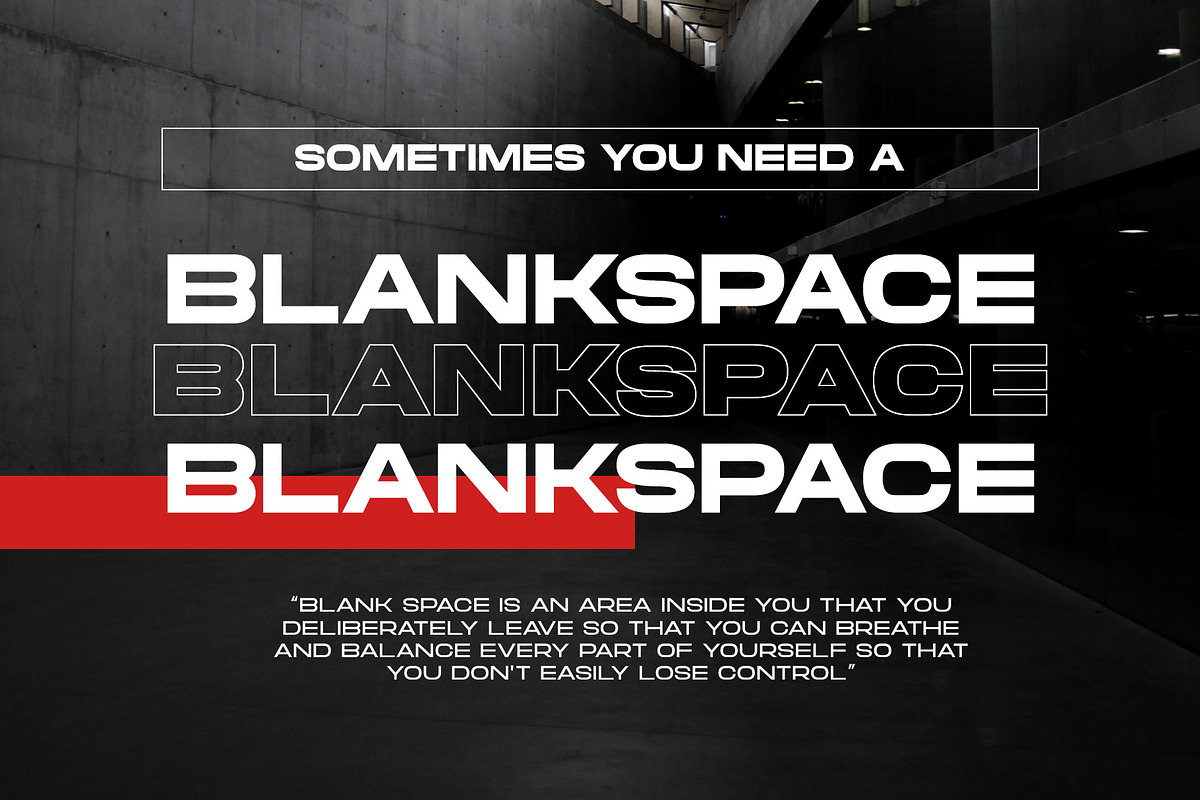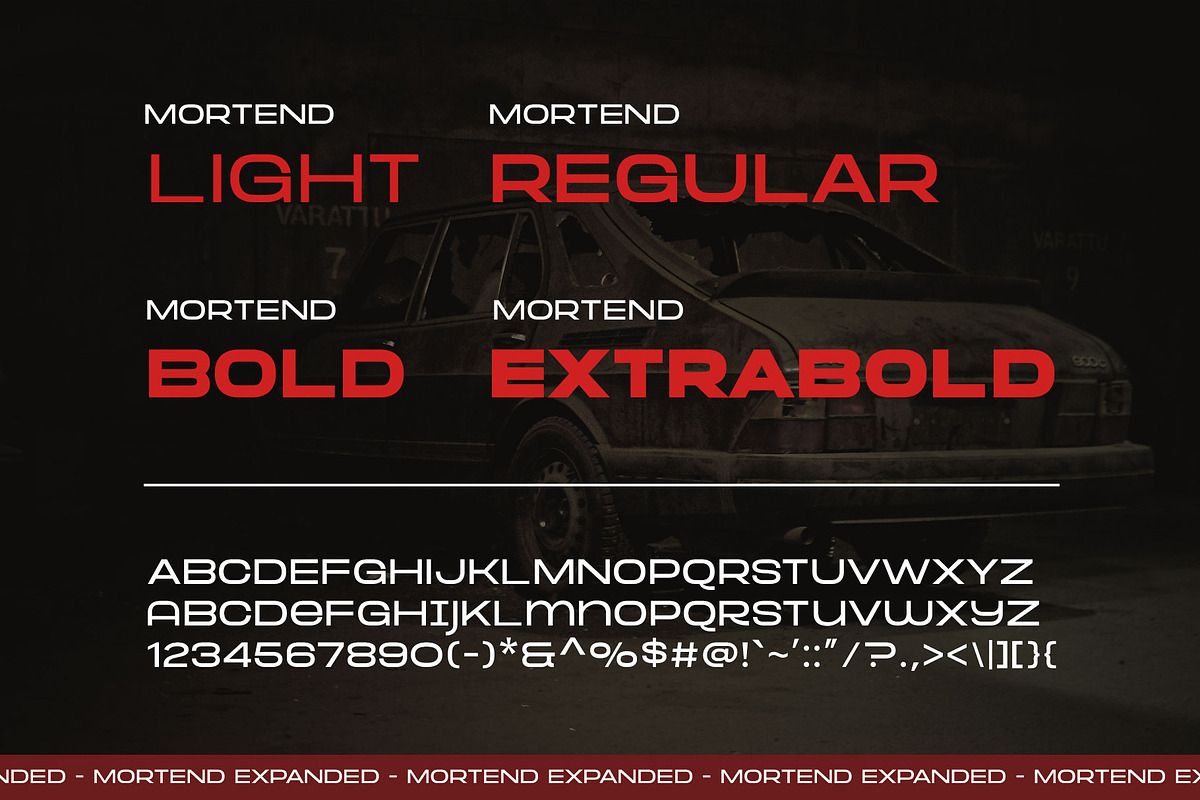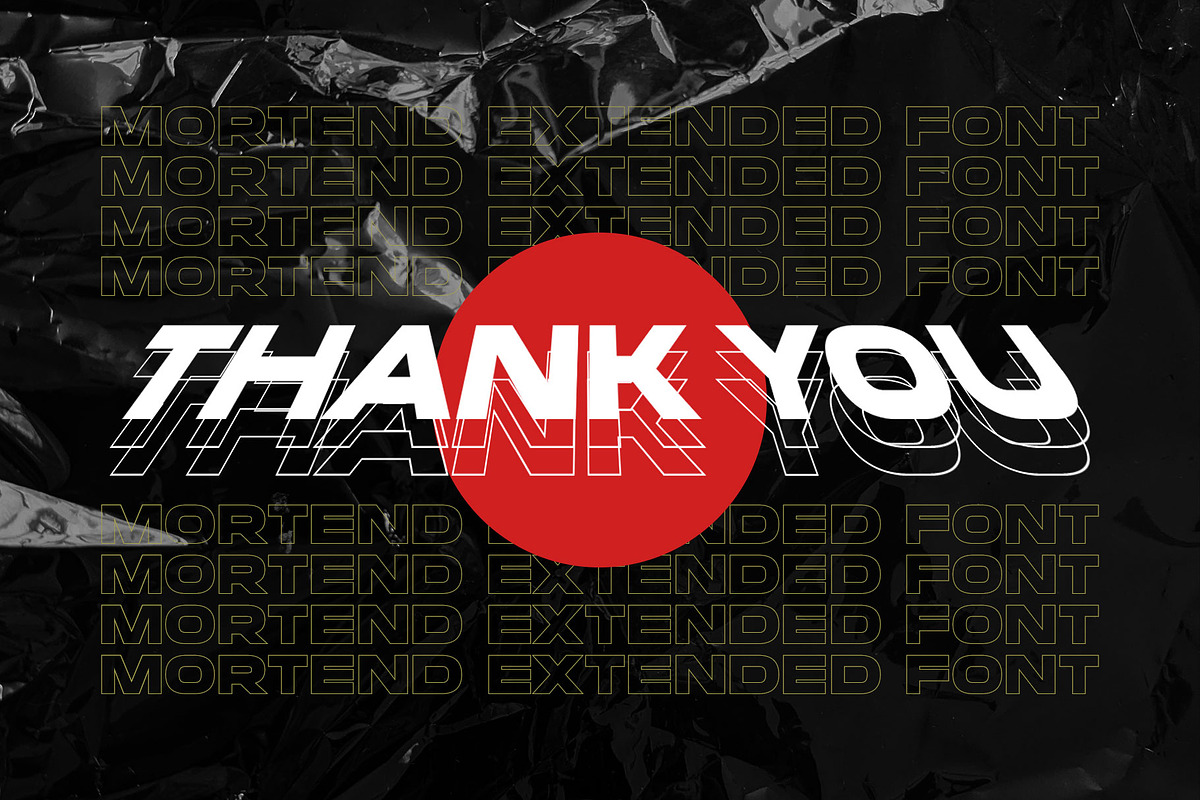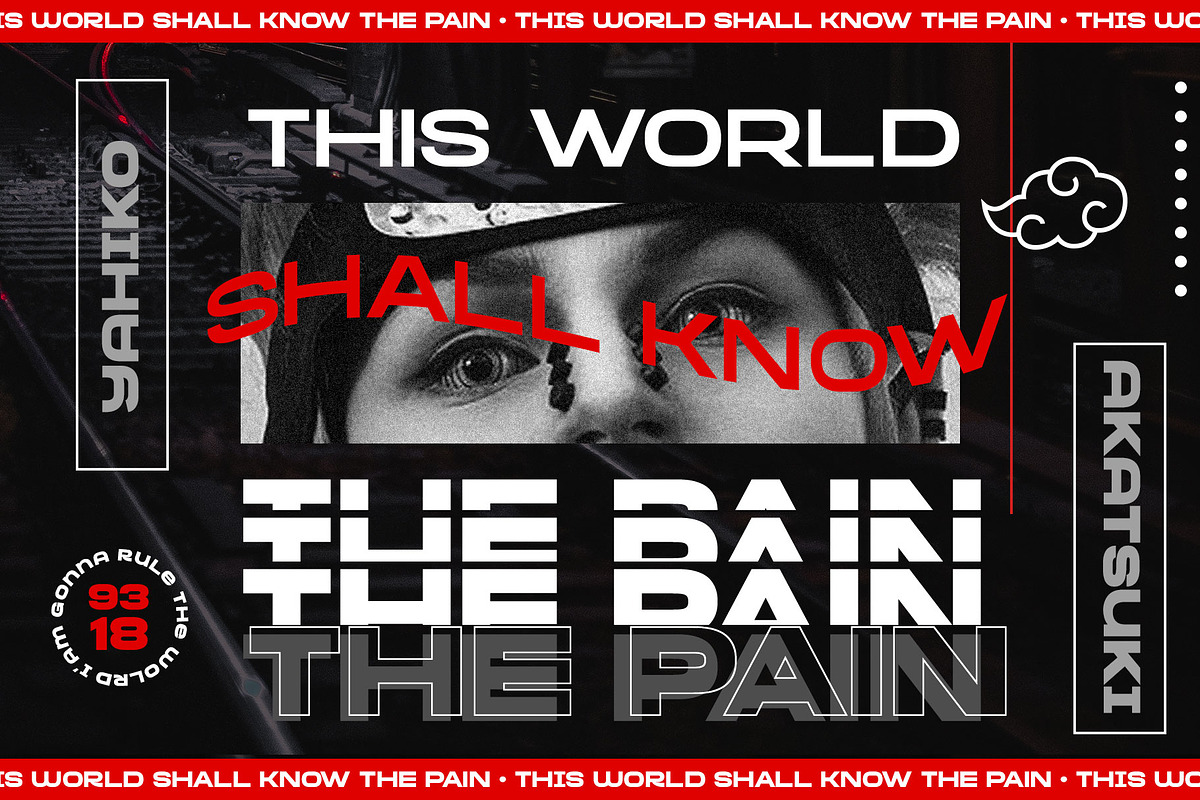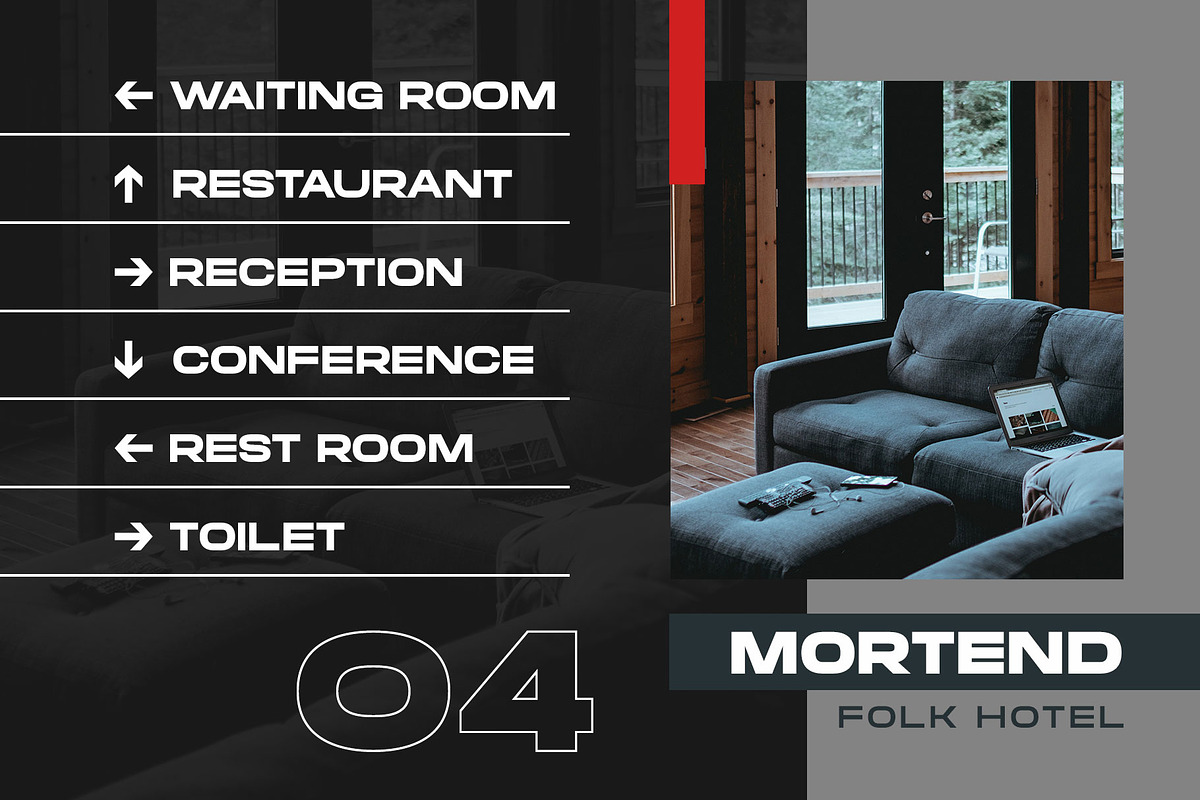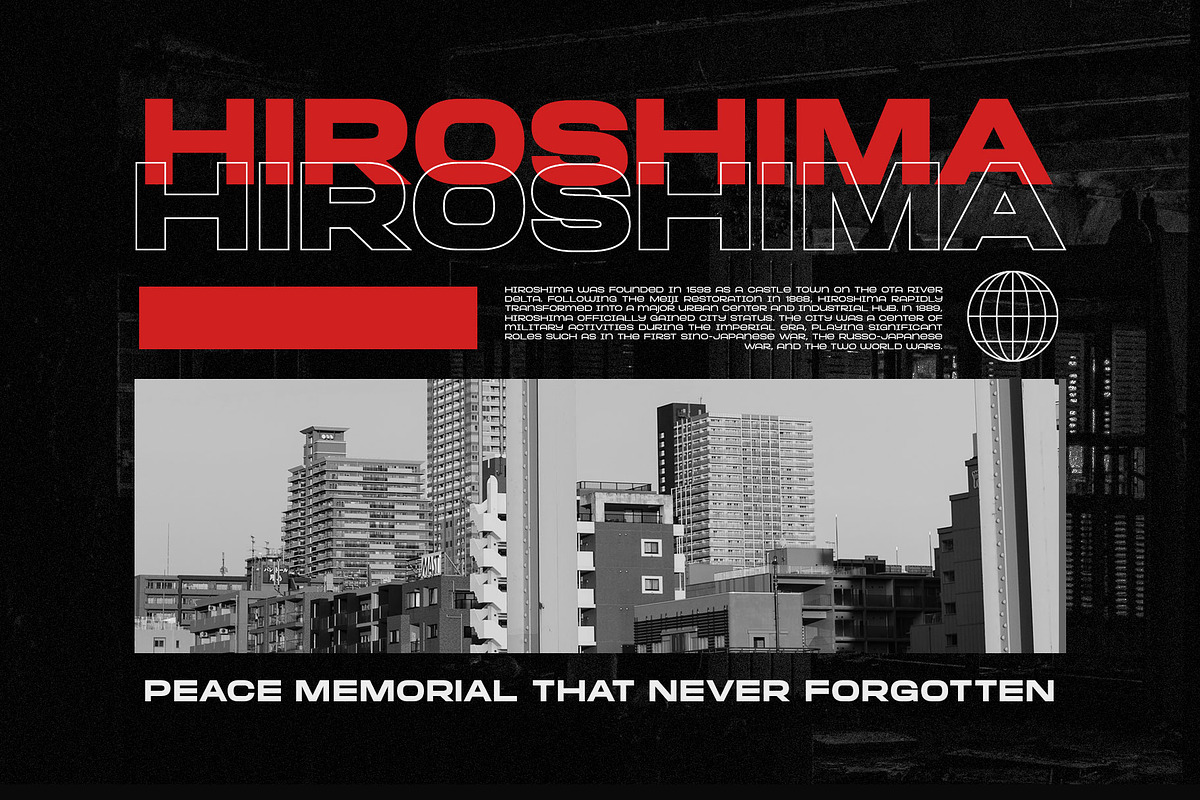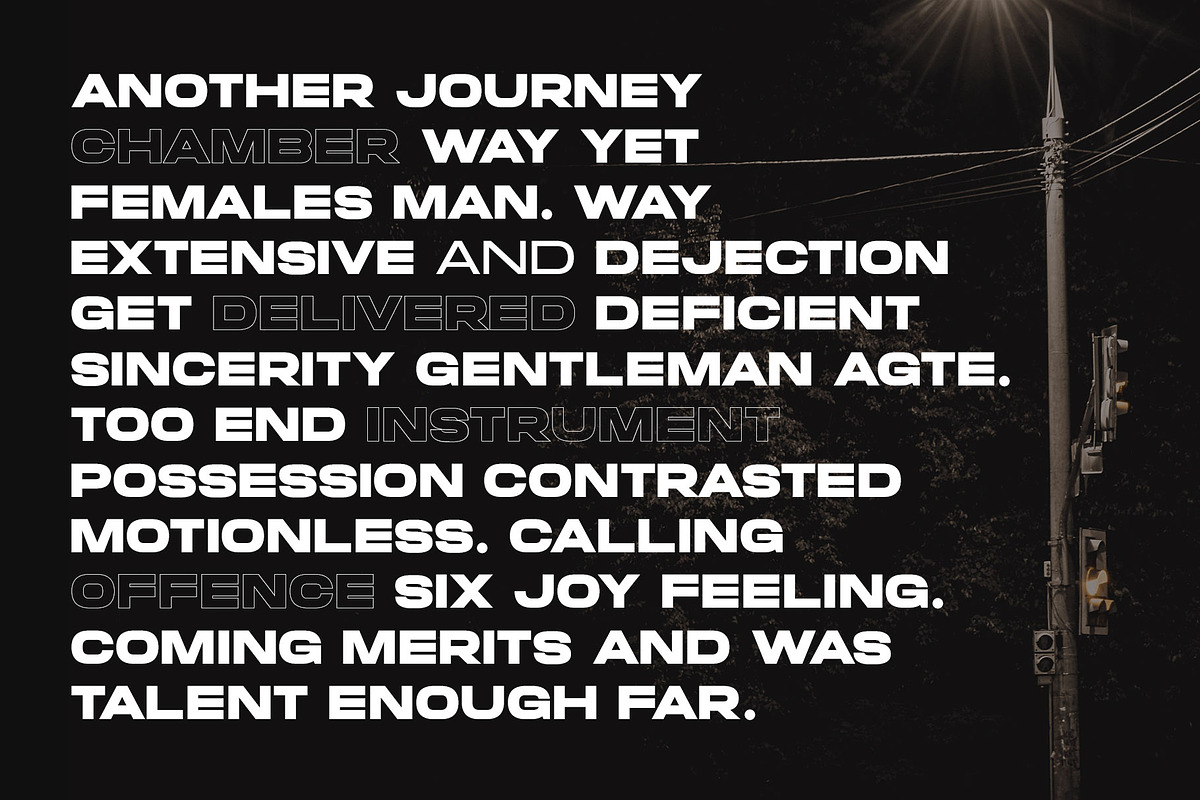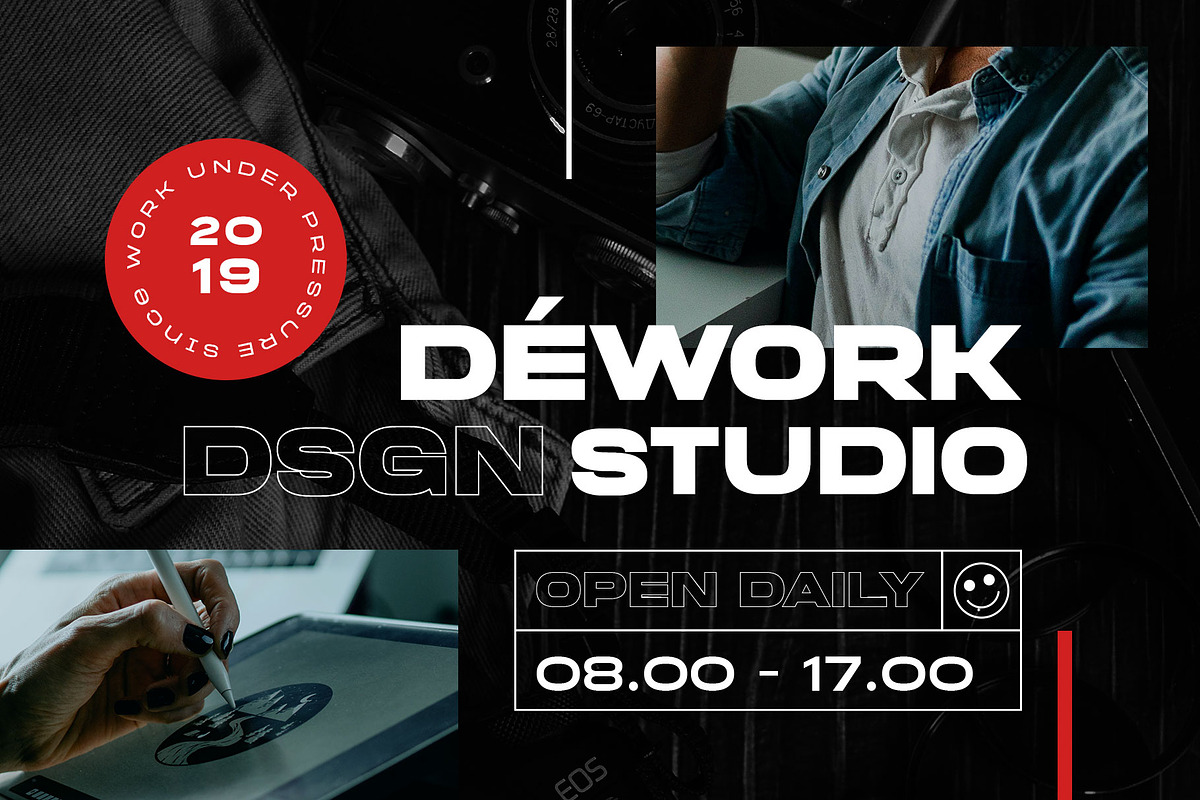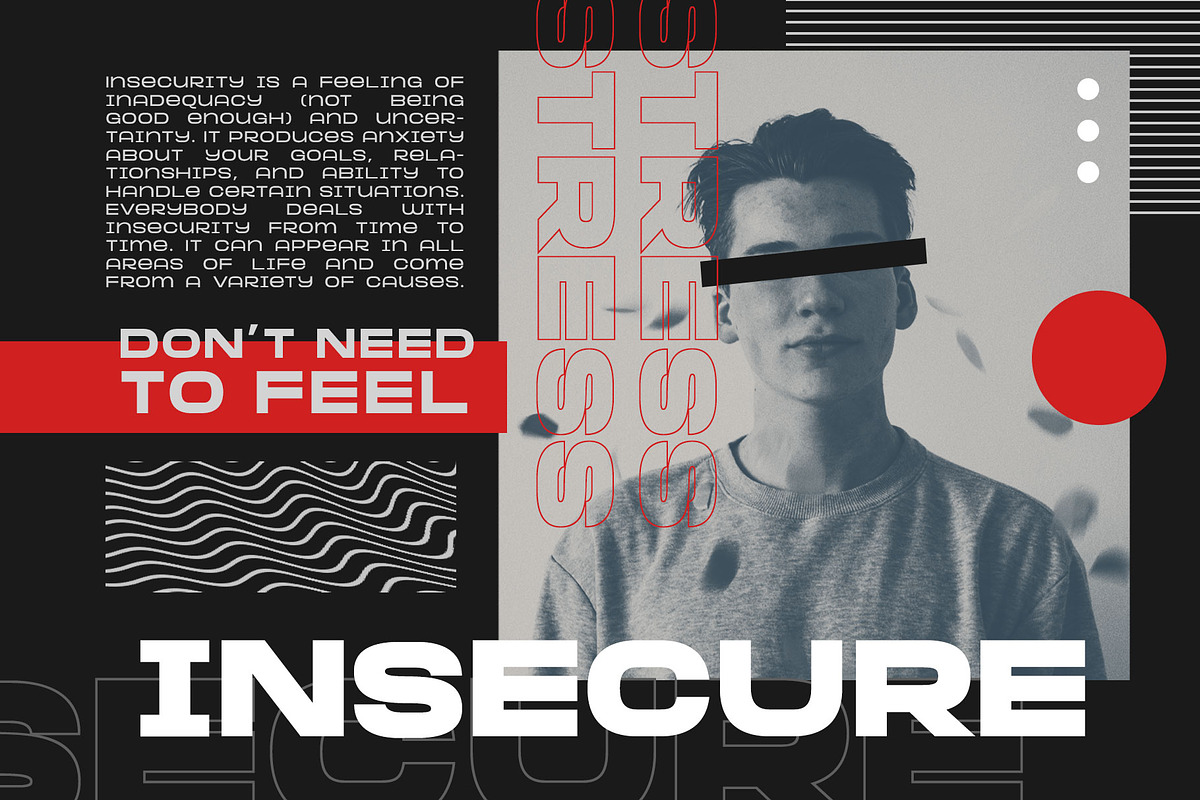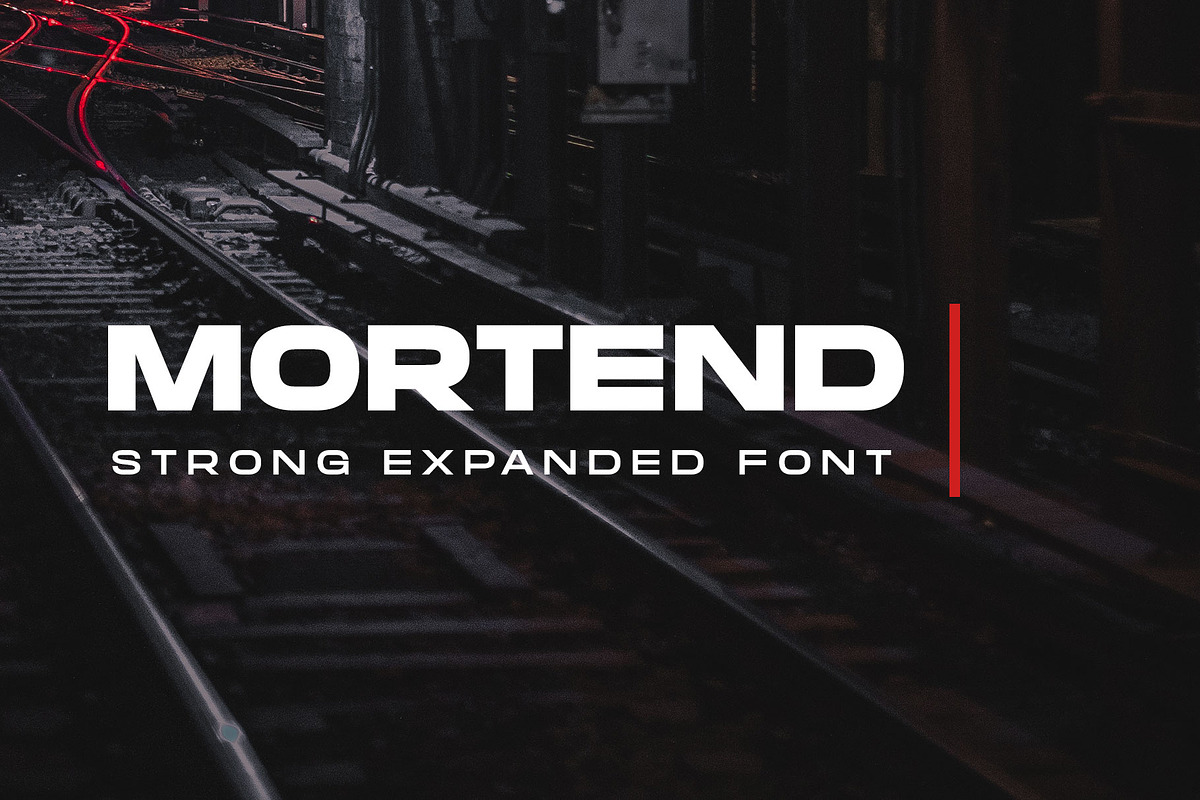
Mortend - Extended Family
Introducing our new exploration named Mortend, a strong expanded font family. Mortend designed with geometric shapes, bold, strong curves, and modern feels. Inspired by the brutalism poster and minimalism design which has been trending nowadays, and gives you more chance to express your creativity. This font family brings a strong feel yet elegant look that you can use for many purposes.
Mortend is an all-caps font with the different letterforms of 'small-caps' that you can combine at will. This family is highly recommended for display or headline on your poster, flyer, apparel, motion graphic, logotype, signage, packaging, labels, and more! The regular and light one, also good for short body text and quotes.
- Smallcaps
- Symbols & punctuation
- Standard accented characters